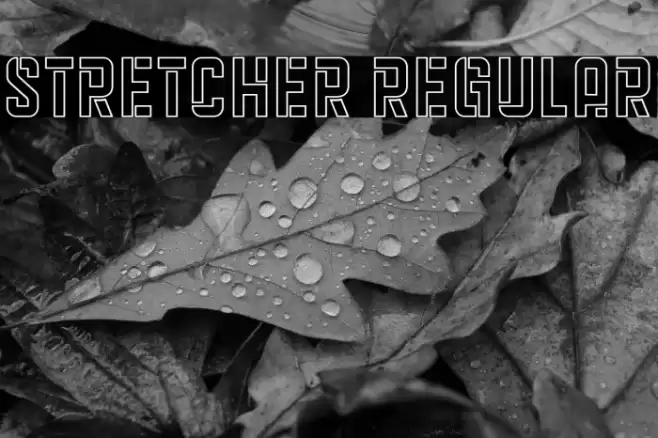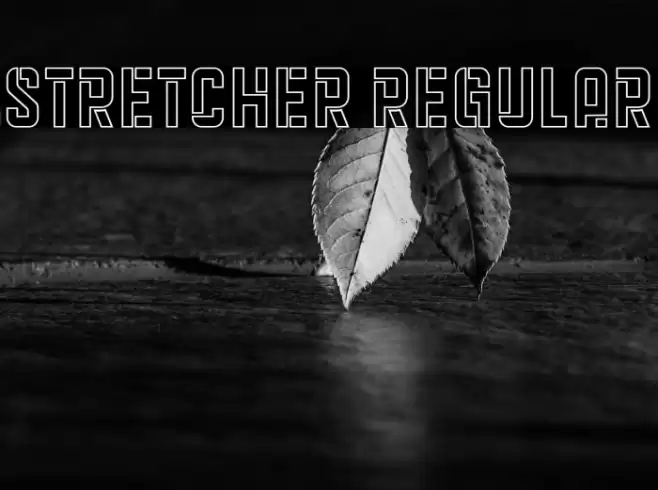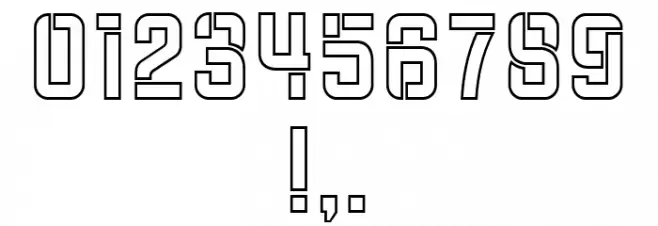
Stretcher Regular Font
Stretcher Regular Description
This font features a unique, geometric design with a hollow, outlined style that gives it a modern and futuristic appearance. The characters are constructed with bold, straight lines and sharp angles, creating a sense of depth and dimension. The uppercase and lowercase letters maintain a consistent height, while the numerals and special characters follow the same design principles, ensuring uniformity across all elements. The font's structure is clean and precise, making it suitable for projects that require a contemporary and eye-catching look.
A geometric, outlined font with a modern, futuristic style from Uncategorized fonts.
- Proposed Projects: Ideal for branding, posters, digital artwork, and any project needing a modern, standout typeface.